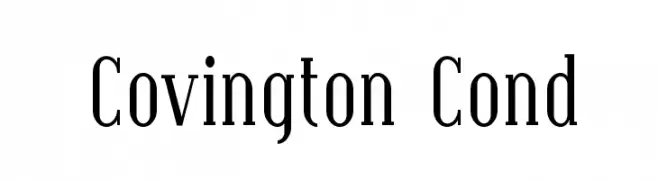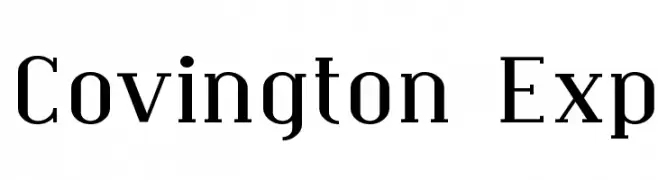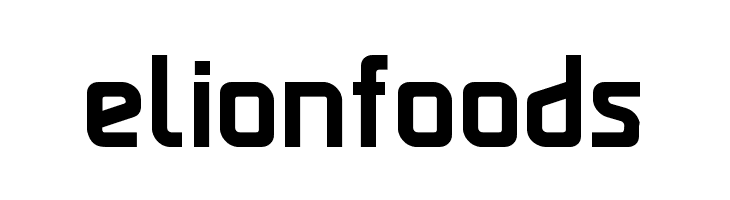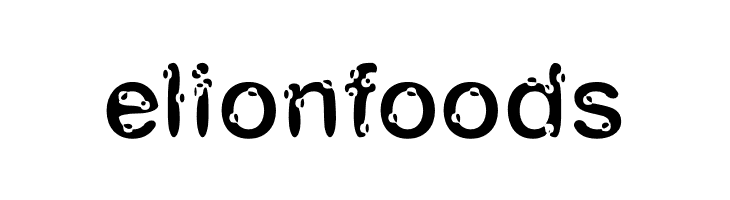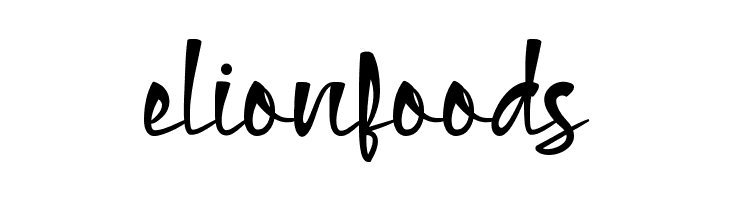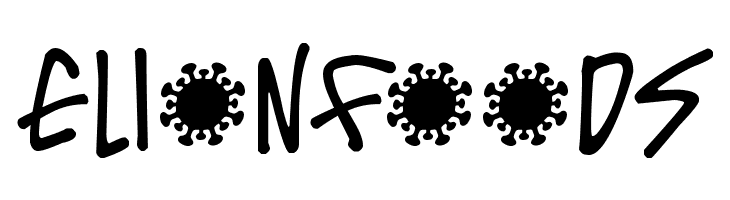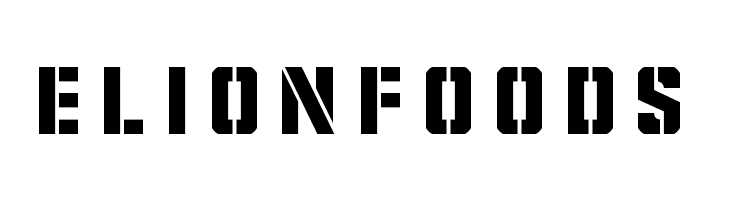
A bold, stencil-style font with high contrast and geometric shapes.
A dynamic and expressive script font with fluid, organic strokes.
A bold, playful handwritten font with unique thematic elements.
A bold, playful font with splatter-like, organic shapes and a graffiti-inspired style.
A playful, splatter-themed font with bold, rounded characters.
A bold, geometric font with a modern and futuristic style.
A rugged, hand-drawn font with a distressed and energetic style.
A modern serif font with elegant, slightly condensed letterforms.
A classic serif font with a condensed style and medium contrast, ideal for elegant designs.
A modern serif font with elegant, elongated serifs and balanced letterforms.